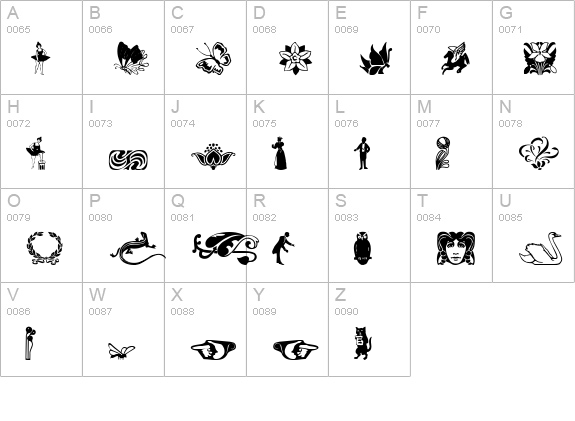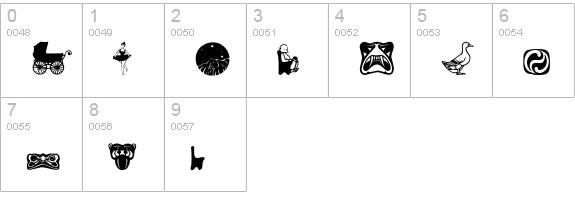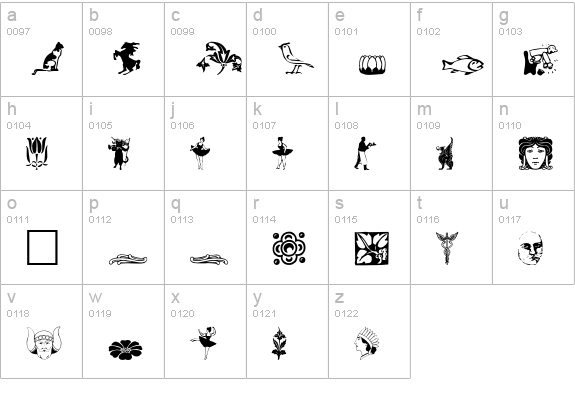
DavysDingbats2 Font Details
DavysDingbats2 font is a whimsical and playful typeface that adds a touch of fun and creativity to any design project. Featuring a variety of unique and intricate dingbat characters, this font is perfect for adding decorative elements to invitations, posters, greeting cards, and more. The DavysDingbats2 font is freely available to download at FontsMarket.com, making it accessible to all designers looking to add a touch of charm to their work. With its quirky and eye-catching designs, this font is sure to make your projects stand out and captivate your audience.